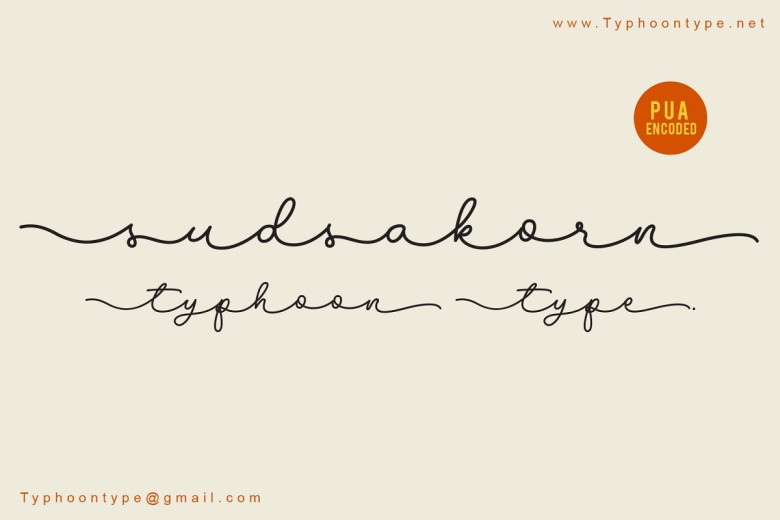
Sudsakorn Signature Font
Sudsakorn Signature Font – Free Demo
Hello world..!! A luxury and fashionable handwriting font, which looks like a signature. This font is especially for you if you need to add tenderness to your project. Introducing Sudsakorn Font! Sudsakorn This font perfect for logos, name tag, advertising, product packaging, clothing, social media & greeting cards.